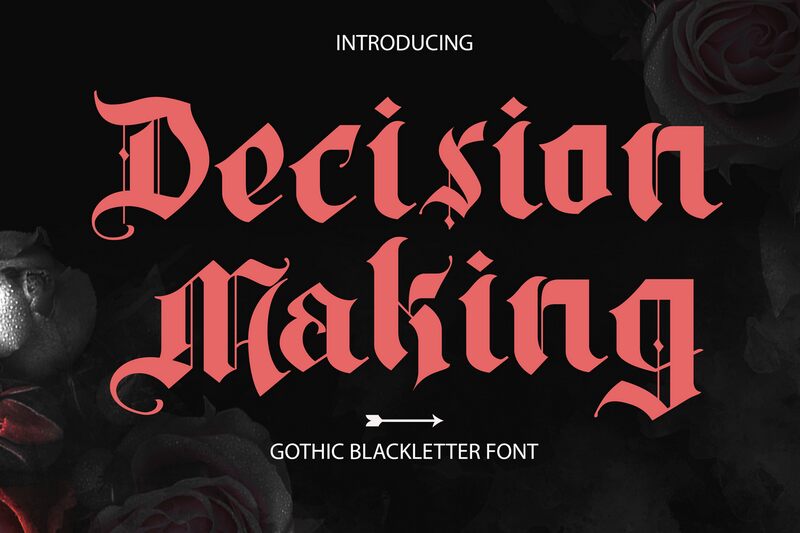
Decision Making Regular
Discover the captivating allure of Decision Making, a gothic blackletter font designed by 177Studio. With its intricate and ornate letterforms, this font transports you to the medieval era, evoking a sense of historical grandeur. Its bold and dramatic style lends itself to an array of projects, from enchanting fantasy novels to immersive video games set in ancient realms.
Create striking logos that exude strength and mystique or bring your brand's packaging to life with an air of timeless sophistication. Decision Making is your gateway to unlocking the power of medieval aesthetics in contemporary design.